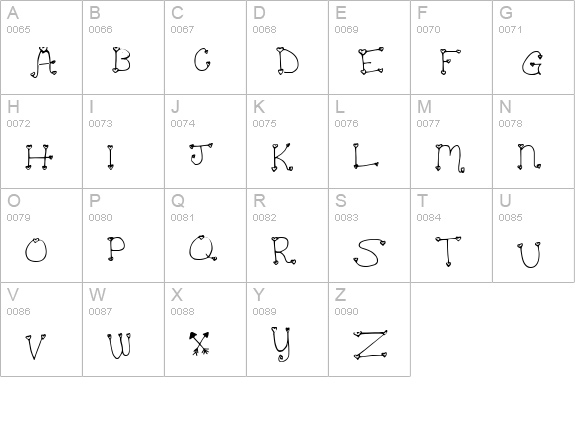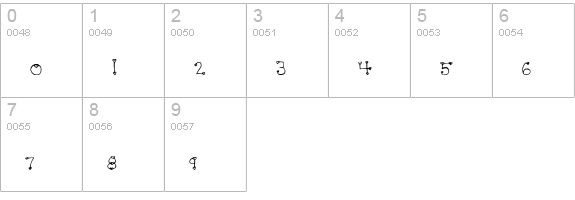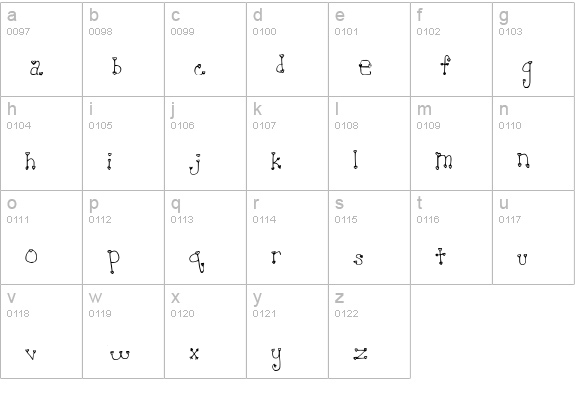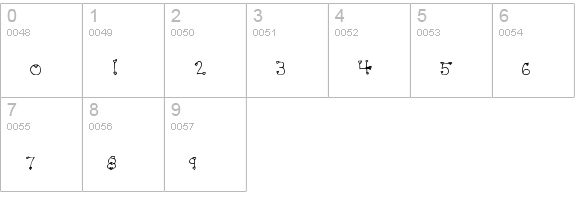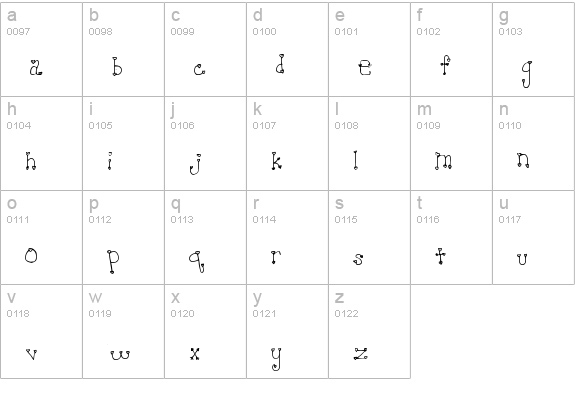
Heartache Teen Crush Font Details
Heartache Teen Crush font is a beautifully designed typeface that encapsulates the essence of youthful love and bittersweet emotions. Its delicate and intricate letterforms capture the vulnerability and excitement of a teenage crush, making it the perfect choice for projects that require a touch of nostalgia and sentimentality. With its elegant curves and playful details, Heartache Teen Crush font adds a whimsical and romantic touch to any design. Whether you're working on a greeting card, a book cover, or a website, this font will effortlessly evoke feelings of innocence, longing, and first love. What makes Heartache Teen Crush font even more appealing is that it is completely free to download at FontsMarket.com. This means that you can easily access and use this enchanting typeface without any cost or restrictions. FontsMarket.com offers a wide range of fonts for both personal and commercial use, and Heartache Teen Crush font is just one of the many gems you can find there. So why wait? Download Heartache Teen Crush font now and let its tender strokes and dreamy charm bring your designs to life. Whether you're designing for a young audience or simply want to infuse your project with a touch of nostalgic romance, this font is sure to capture hearts and create a lasting impression.